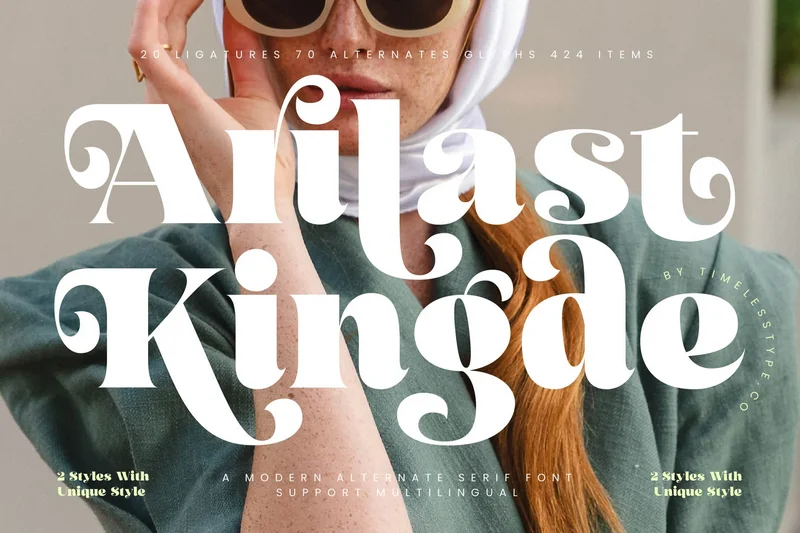
Arilast Kingde – Modern Alternate Serif Font
Ailast Kingde is a modern alternate serif font designed with bold shapes and elegant swashes, giving it a stylish and luxurious personality. With multiple alternates and ligatures, this typeface is perfect for branding, packaging, editorial titles, invitations, and high-end logos. Ailast Kingde offers versatility for both digital and print projects, making it the ideal choice for designers seeking timeless elegance with a dramatic touch.